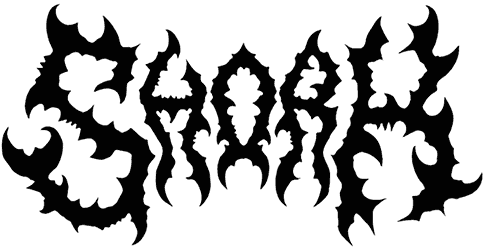
Shork Font
When you’re home alone later at night, sensing that something is staring at you from that dark corner, you’re gonna be thinking of Shork and its demonic vibes. This death metal font is so terrifying that even looking at it once is gonna leave your soul with a scar for life. You’re welcome!
But no one said you’re gonna be alone in this. Pass on the trauma! Don’t hesitate… People are asking for it, especially those who go to escape rooms or watch horror movies.